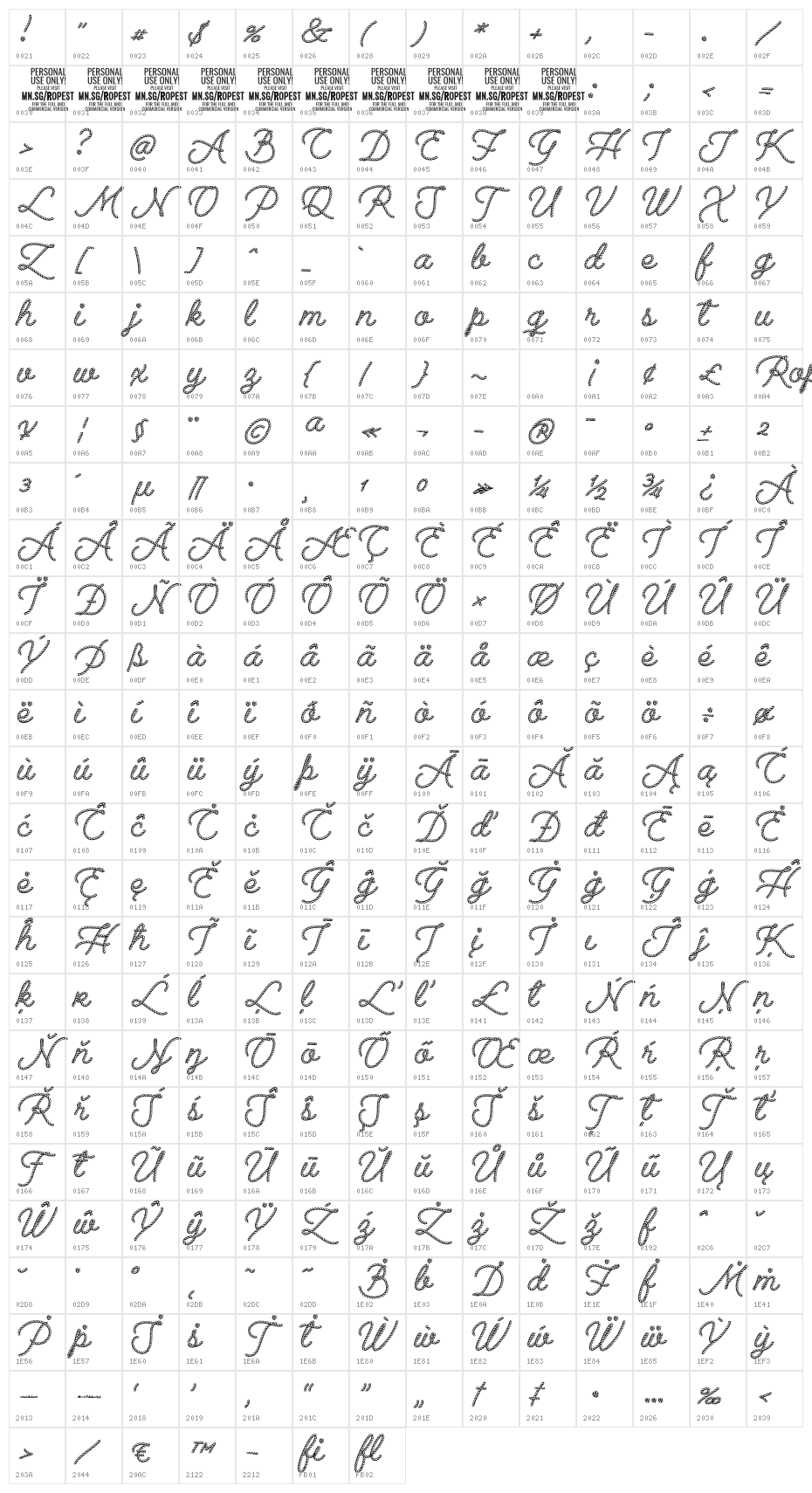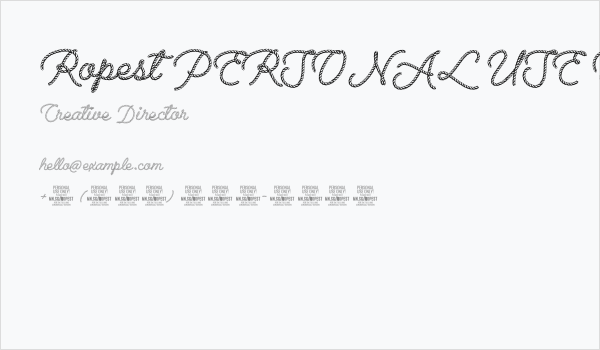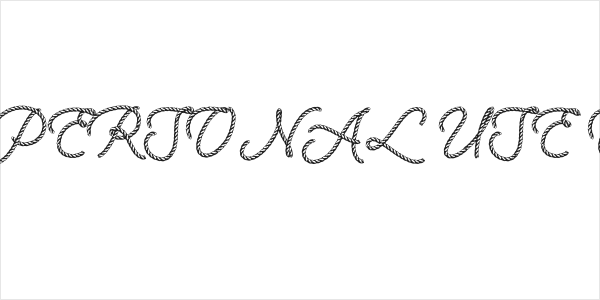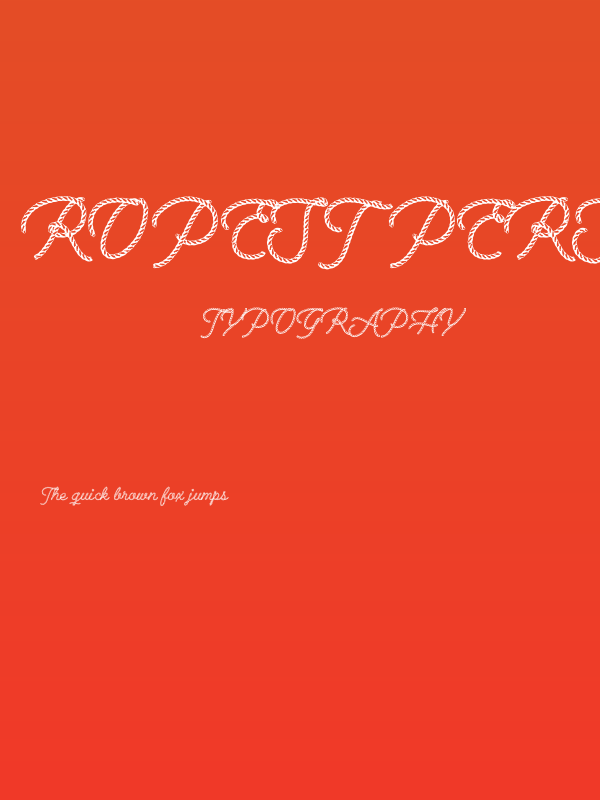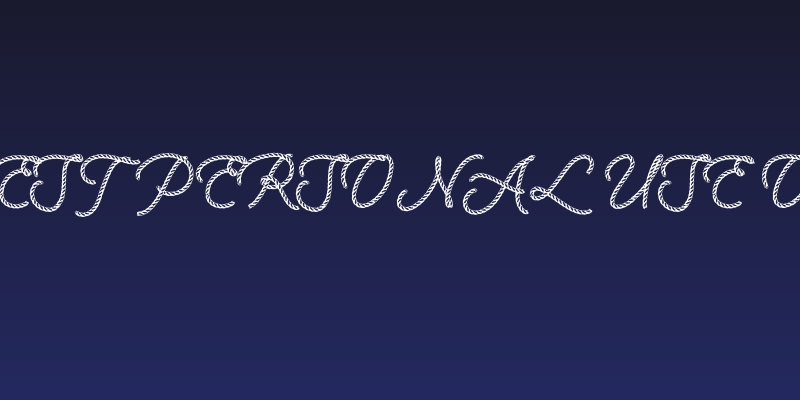
Ropest PERSONAL USE ONLY Font
Ropest PERSONAL USE ONLY Description
This font features a unique design where each character is crafted to resemble a rope, giving it a distinct and textured appearance. The letters are interconnected in a cursive style, adding a sense of fluidity and movement. The uppercase and lowercase letters maintain a consistent rope-like pattern, enhancing the overall theme. The numerals and special characters are also designed with the same rope motif, ensuring uniformity across the font. This decorative style is eye-catching and ideal for projects that require a nautical or adventurous theme.
| Use Case | Logos, Posters, Invitations |
| Proposed Projects | Ideal for branding, logos, posters, and invitations that require a nautical or adventurous aesthetic. |